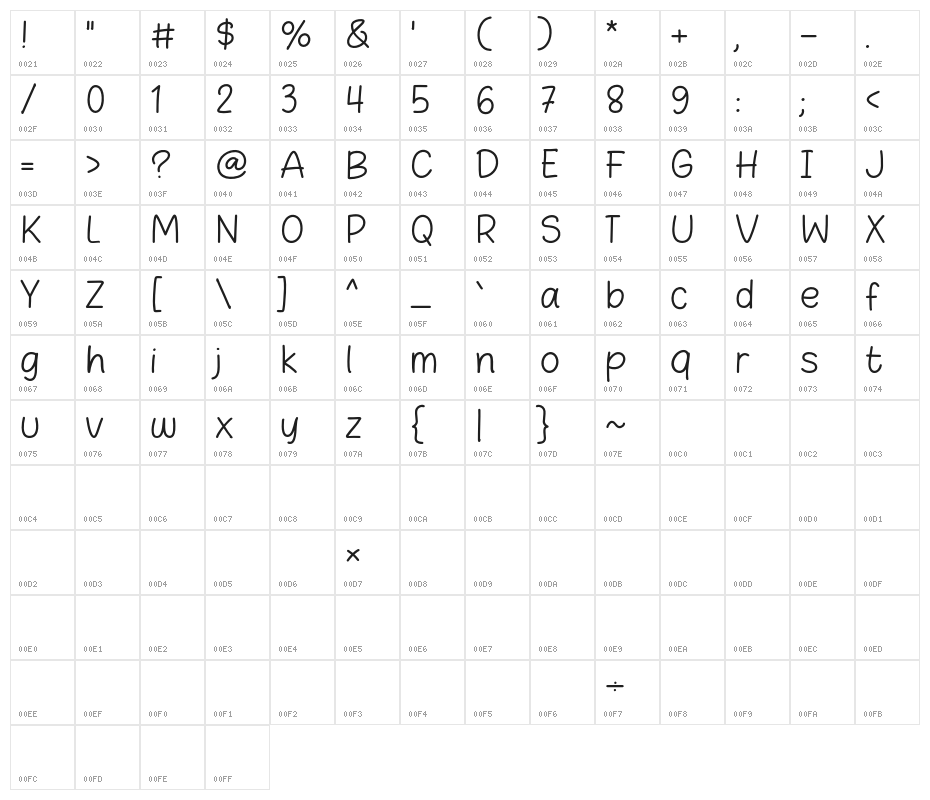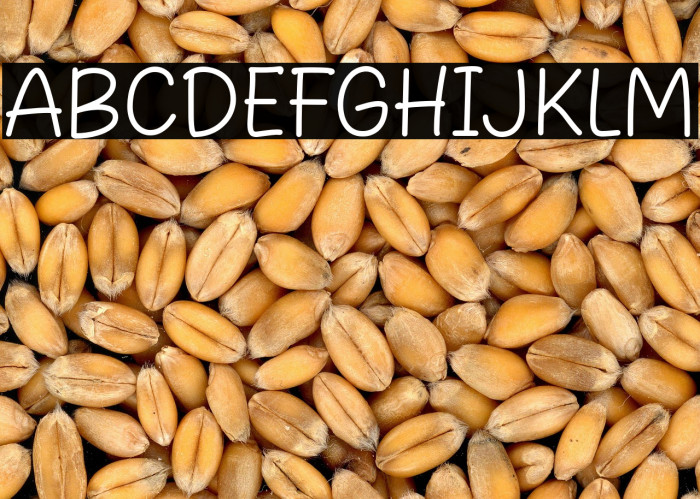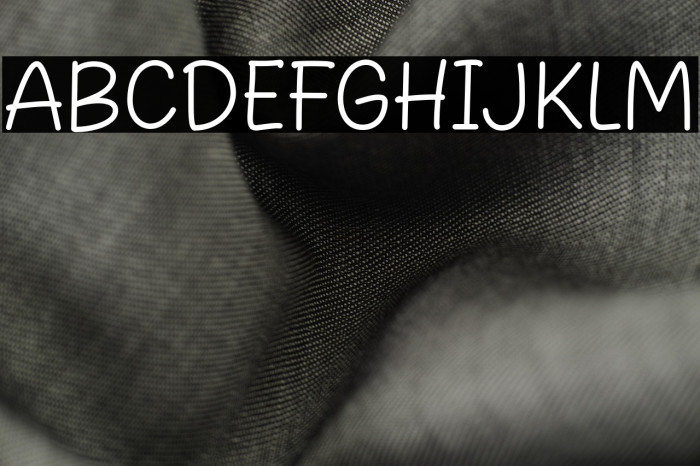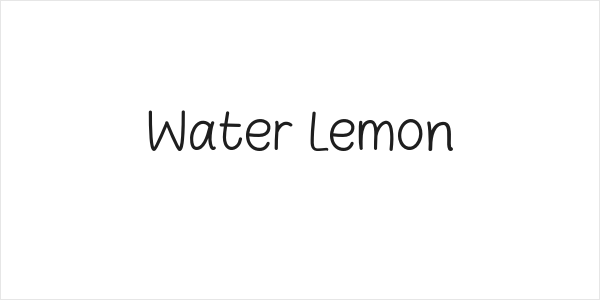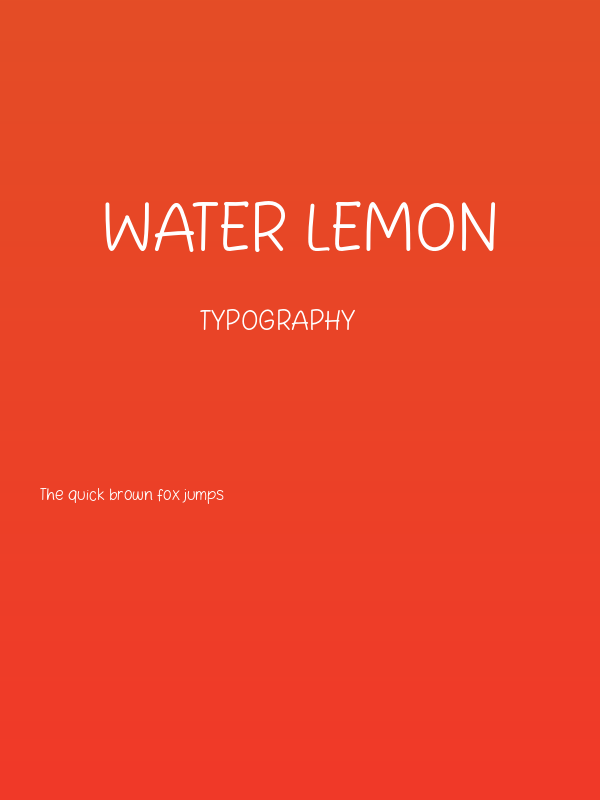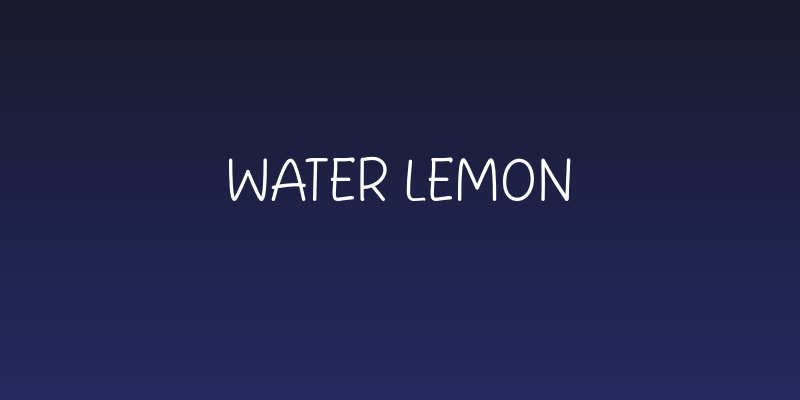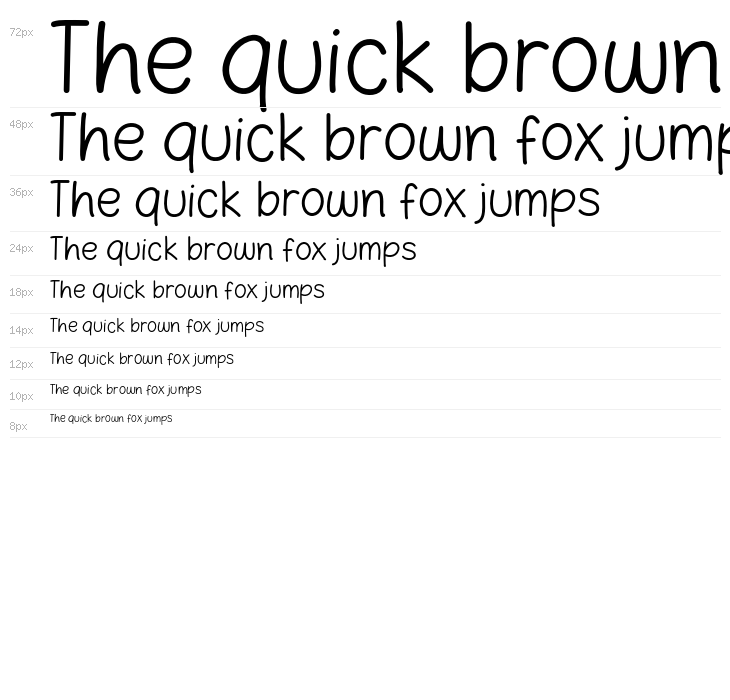
Water Lemon Font
Water Lemon Description
This font features a playful and casual handwritten style, characterized by its rounded and slightly irregular letterforms. The uppercase and lowercase letters maintain a consistent flow, giving a friendly and approachable appearance. The numerals and special characters are designed to match the overall aesthetic, with a uniform stroke width that adds to its legibility. The font's informal nature makes it suitable for projects that require a personal touch, such as invitations, greeting cards, and children's books. Its simplicity and charm are enhanced by the balanced spacing between characters, ensuring readability while maintaining its whimsical style.
| Overall Style | Casual, Playful |
| Use Case | Headlines, Informal text, Creative projects |
| Proposed Projects | Ideal for invitations, greeting cards, children's books, and casual branding. |